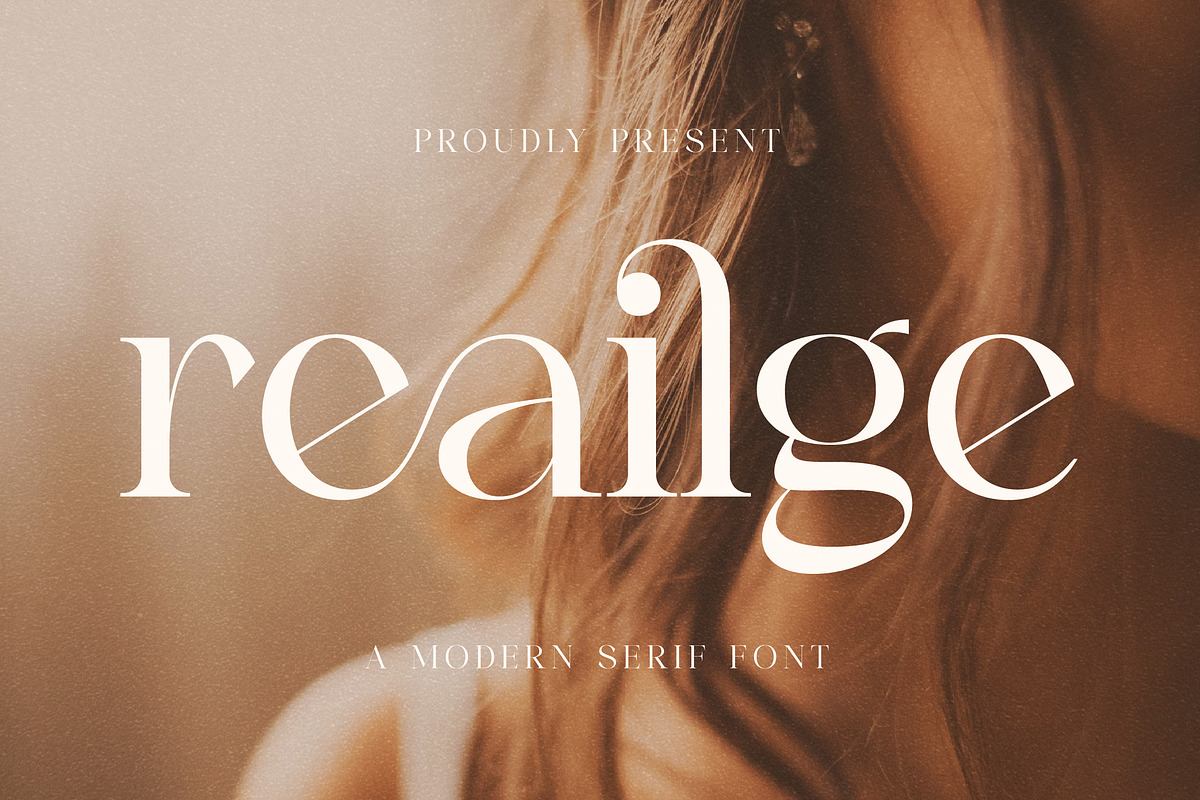
Reailge Modern Serif Font Free Download
Reailge Modern Serif Font Free Download is a sleek, contemporary typeface designed to bring a sophisticated and professional edge to your designs. With sharp serifs and clean lines, this font is perfect for upscale branding, editorial designs, and minimalist websites. Its versatility makes it ideal for creating logos, business cards, magazine layouts, and stylish invitations. The modern touch combined with classic serif elements ensures Reailge stands out with both elegance and readability. Whether you're working on a high-end project or refreshing your brand’s identity, Reailge Modern Serif Font Free Download allows you to test its premium feel in your personal or concept work before purchasing a commercial license. Elevate your designs with a font that embodies professionalism, refinement, and a timeless aesthetic.